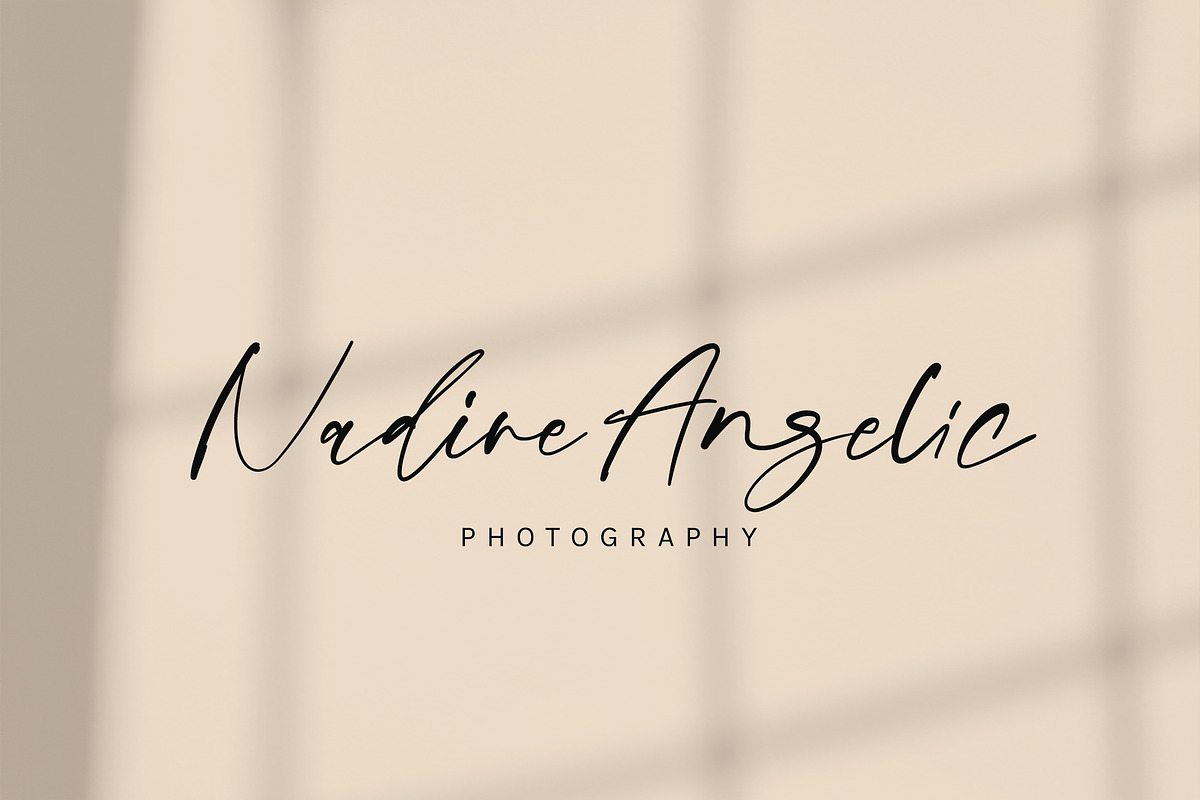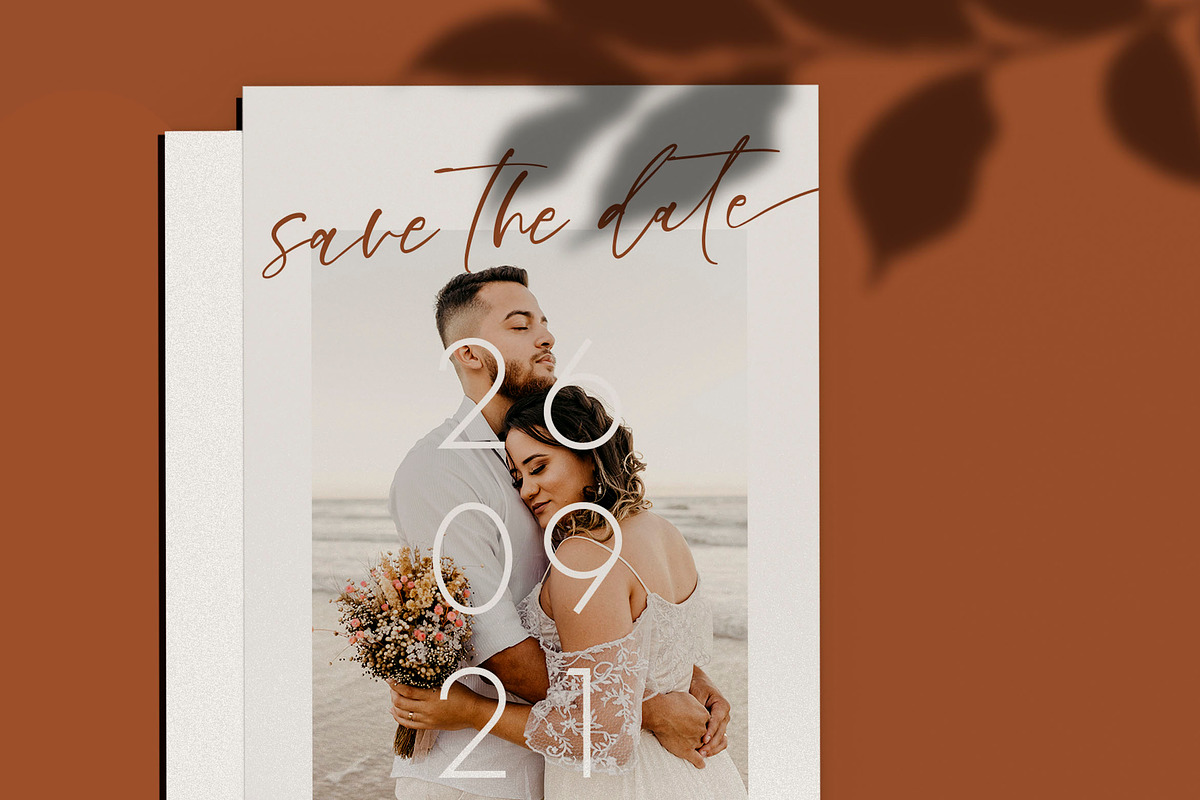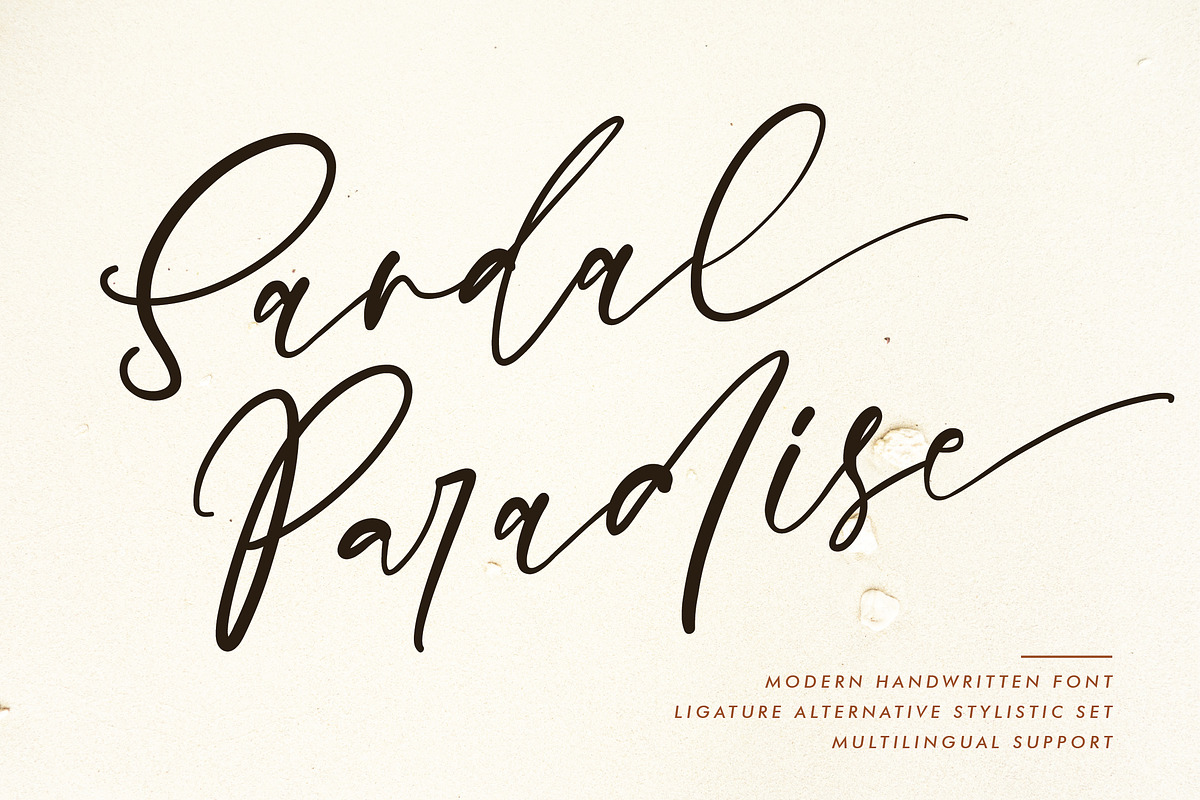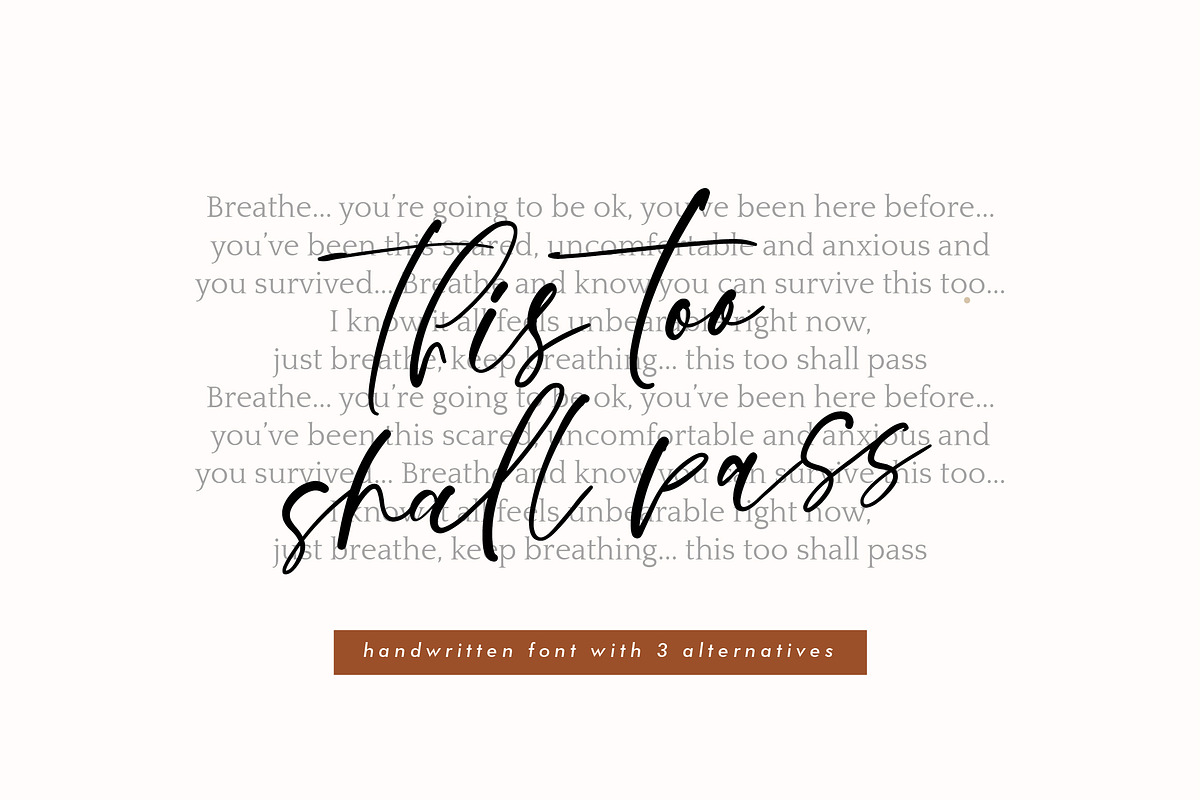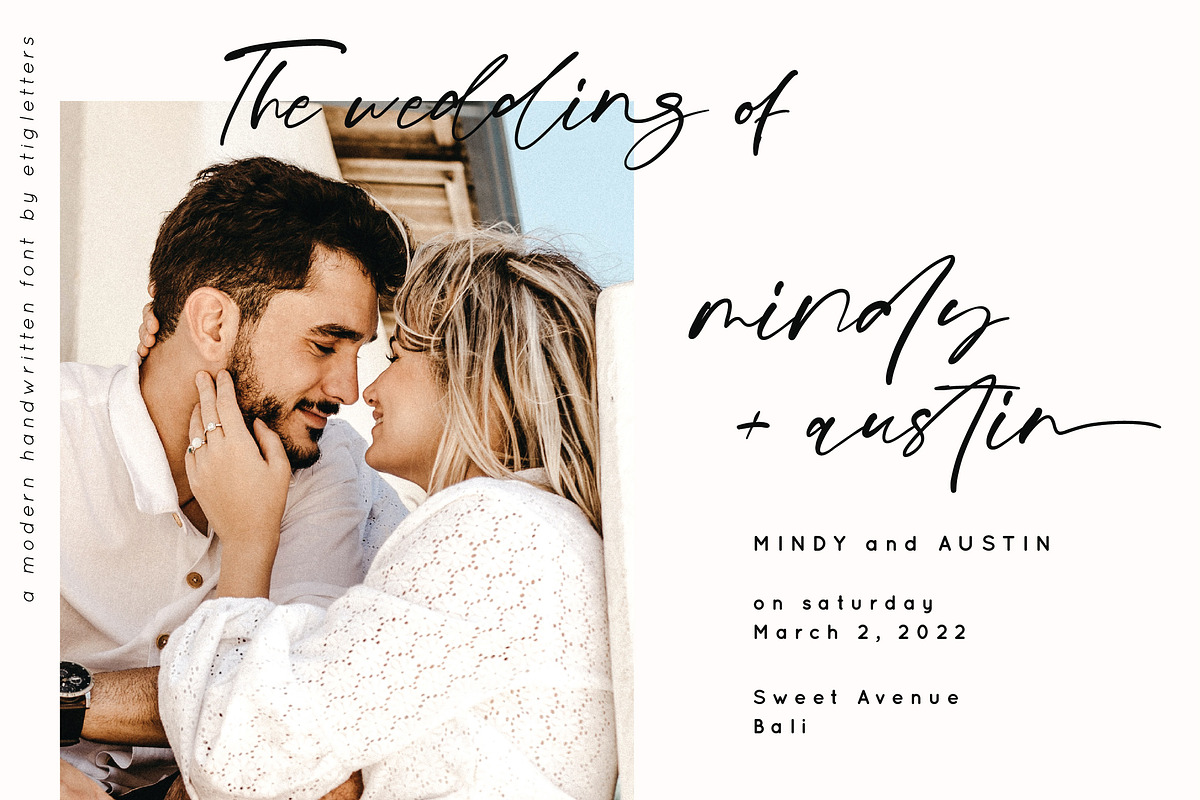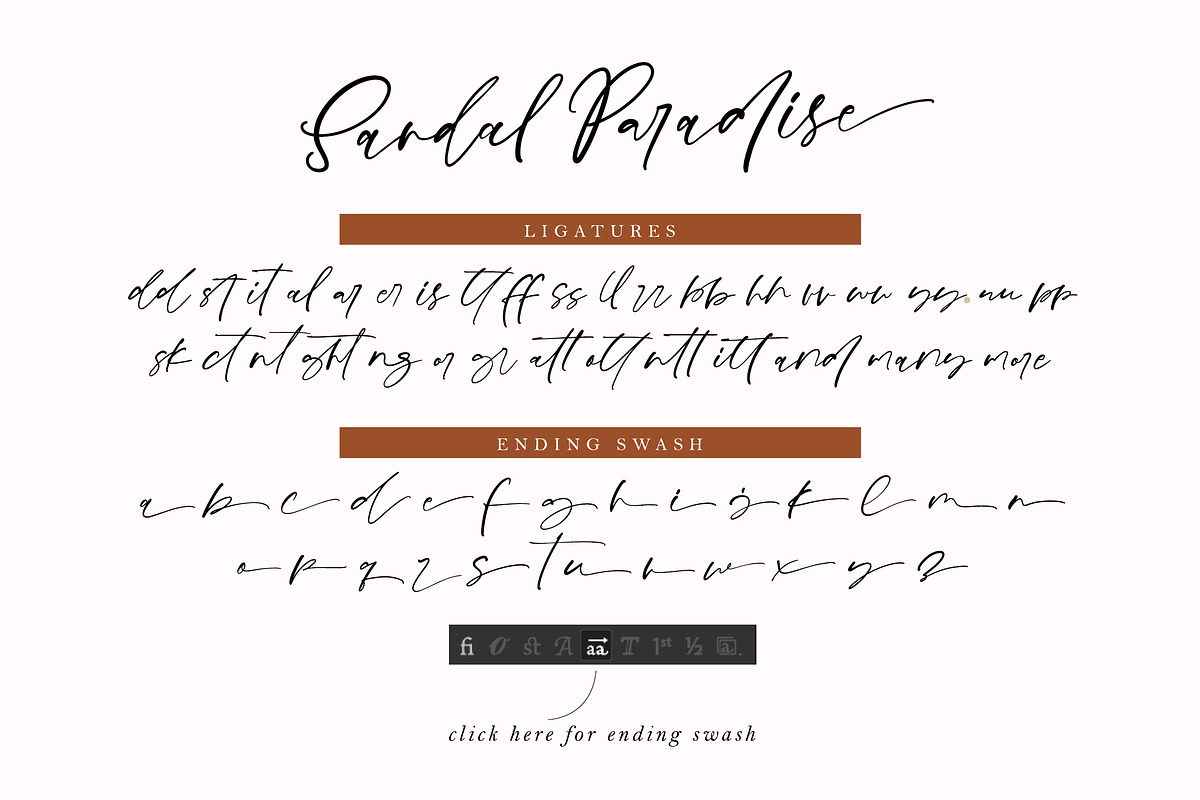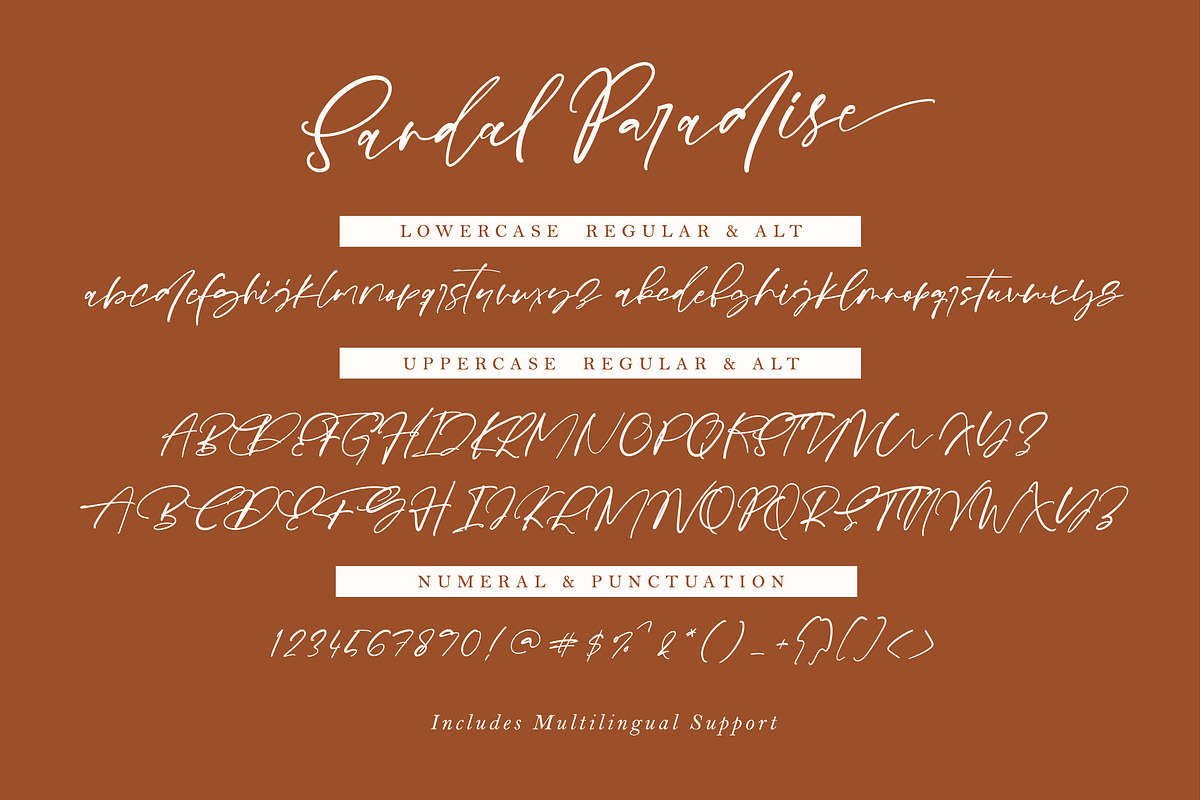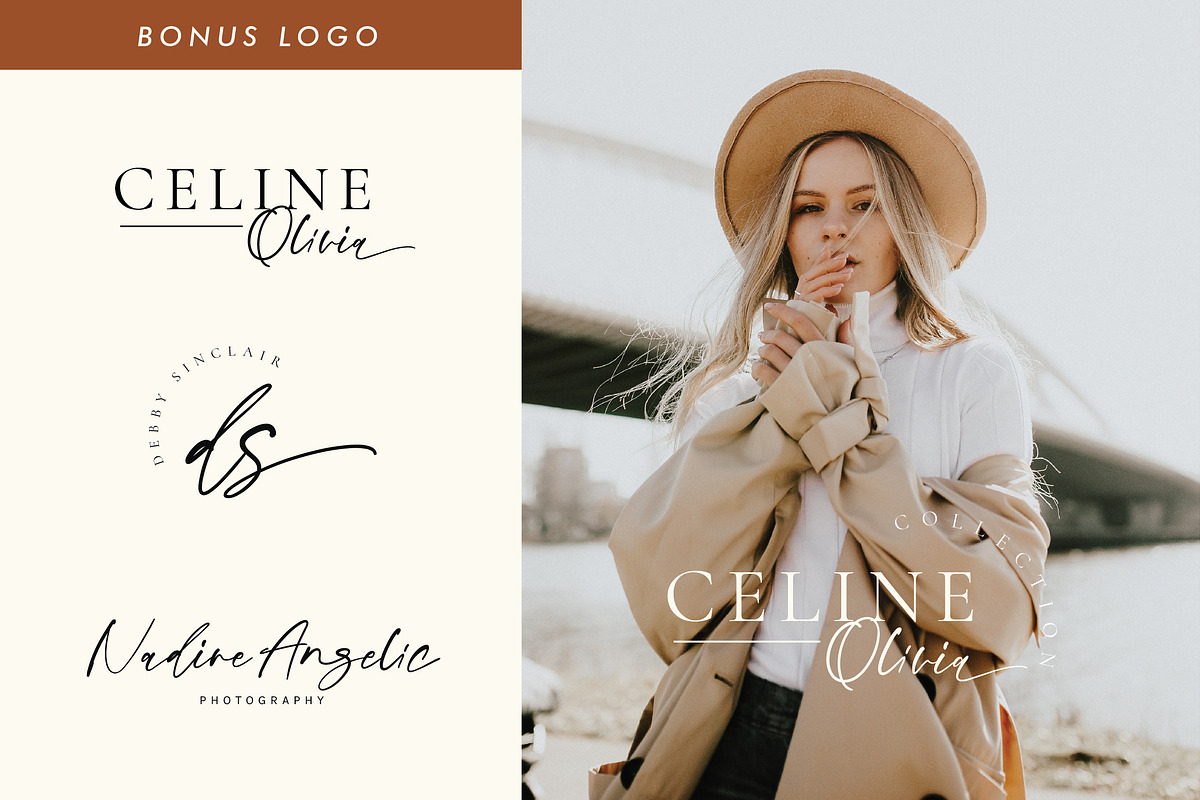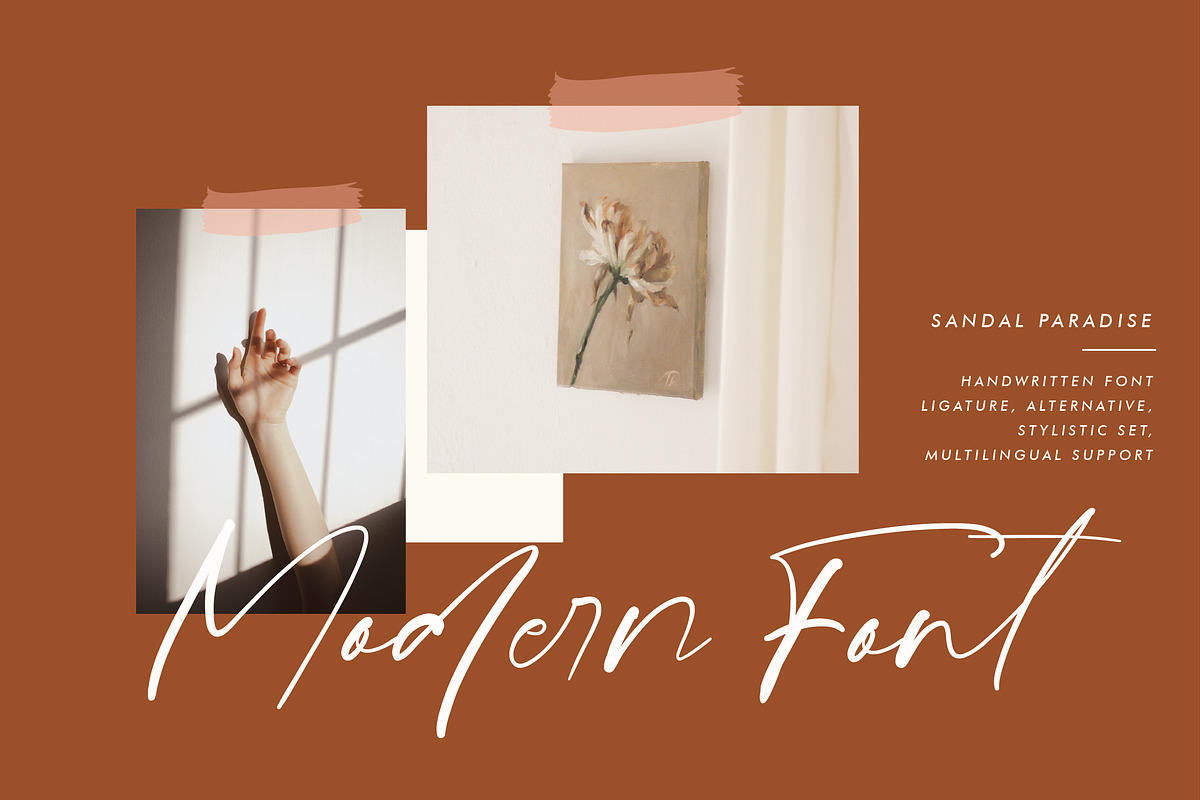
Sandal Paradise Signature
Introducing modern handwritten font, Sandal Paradise. This signature font style is for you who needed modern and stylish for your design. It's perfect for logo branding, quotes, magazines, fashion look book, brochures, social media, weddings, and other needs.
Sandal Paradise includes a full set of lowercase and uppercase letters, numerals and punctuation, multilingual symbols, lowercase, ligatures. alternatives, stylistic set. Sandal Paradise is also supported multilingual and already PUA Encoded!
BONUS Premade Logos!